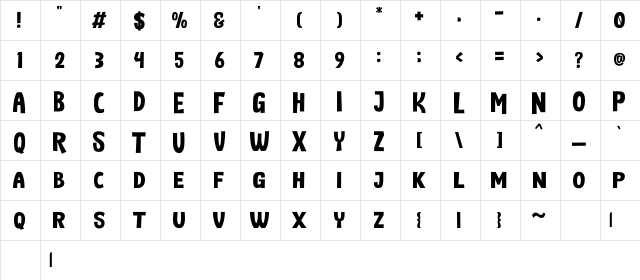
MoGa ReZeKi DuA ReZeKi-DuA Free Font
MoGa ReZeKi DuA ReZeKi-DuA
Style: ReZeKi-DuA
Foundry: Astageni Type
Designer: Nur Solikh
Design Context for MoGa ReZeKi DuA
MoGa ReZeKi DuA is a composed and adaptable typeface that performs quietly and consistently across a wide range of design contexts.
Pro Tip: Use MoGa ReZeKi DuA in both headline and body roles to test its range before committing to a single application.